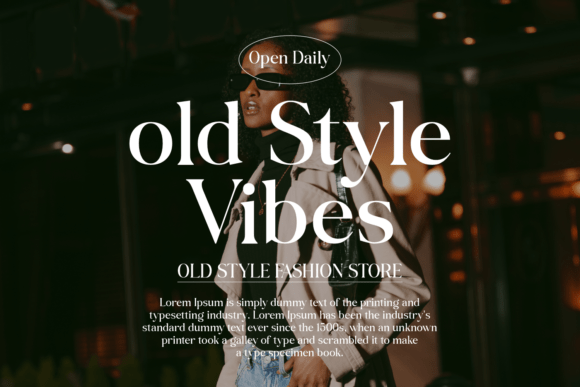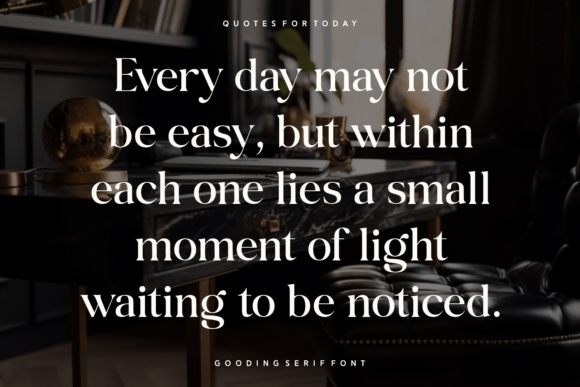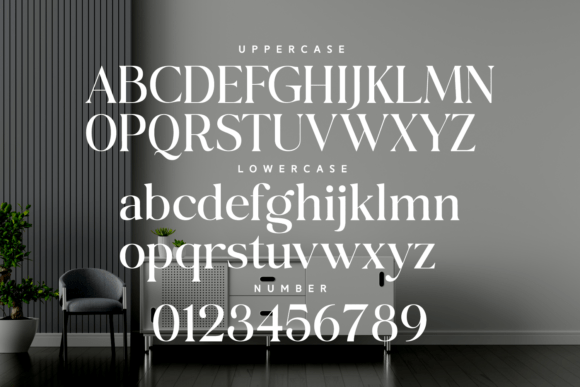
The Elusive Font: A Designer’s Quest for Elegance
I still remember the project like it was yesterday. A high-end fashion brand needed a sophisticated font for their luxury magazine, and I was on a mission to find the perfect one. I scoured the internet, tried out countless fonts, but none seemed to strike the right balance between classic elegance and modern flair. That was until I stumbled upon Gooding, a sleek modern serif font that exceeded my expectations.
First Impressions: A Love Affair with Gooding
Gooding is a masterclass in font design, boasting bold elegance and contemporary flair. Its sharp contrasts, refined curves, and sophisticated details make it the perfect choice for high-end branding, fashion editorials, lifestyle magazines, product packaging, and luxury advertising.
An Honest Review: The Good, the Bad, and the Quirky
- ✨ Elegant and sophisticated design: Gooding exudes luxury and refinement, making it perfect for high-end projects.
- ✅ Versatile and adaptable: This font works beautifully in various contexts, from digital media to print publications.
- 💡 OpenType features and glyphs: Gooding offers a range of stylistic alternates, swashes, and ligatures to add creative flair to your designs.
Small Quirks and Limitations:
While Gooding is an exceptional font, it’s not without its quirks. For instance, ⚠️ some users may find the font’s bold weight a tad too heavy for certain applications. Additionally, 🤔 the font’s extensive feature set may require a bit of time to master.
The Story Behind Gooding: Designer Inspiration
Gooding was designed with the goal of creating a font that embodies the perfect balance between classic elegance and modern sophistication. The designer drew inspiration from various sources, including luxury brands, fashion editorials, and high-end publications. The result is a font that exudes refinement, poise, and style.
Q: What is Gooding’s primary use case?
A: Gooding is ideal for high-end branding, fashion editorials, lifestyle magazines, product packaging, and luxury advertising.
Q: Does Gooding support OpenType features?
A: Yes, Gooding offers a range of OpenType features, including stylistic alternates, swashes, and ligatures.
Q: Is Gooding suitable for body text?
A: While Gooding is an elegant font, it’s primarily designed for headlines and display text. For body text, consider pairing it with a complementary font for optimal readability.